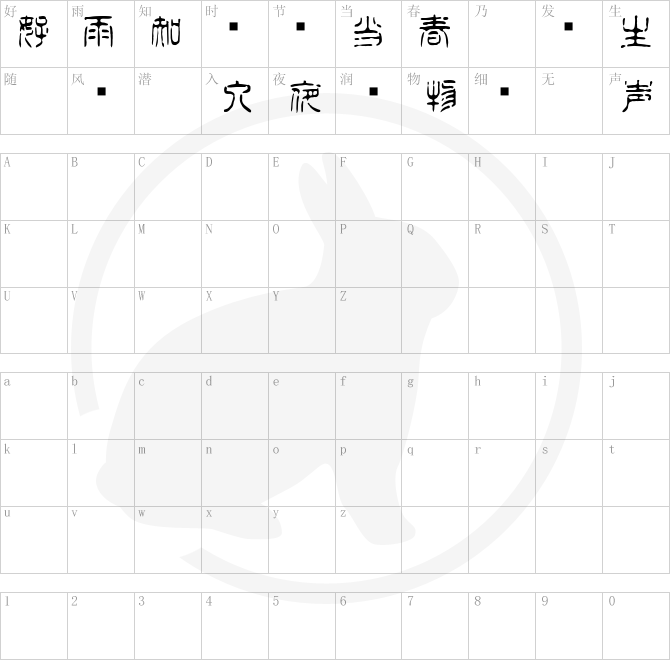
- Font Name:白舟篆古印教漢
HakusyuTenkoin_kk.ttf is a very beautiful artistic font, HakusyuTenkoin_kk.ttf is widely used in the design and printing of various books and pictures,HakusyuTenkoin_kk.ttf has a strong visual impact,HakusyuTenkoin_kk.ttf is a commonly used font in newspapers, magazines and books, and is used in posters, e-commerce Poster design, store design, logo design, font design and other fields.HakusyuTenkoin_kk.